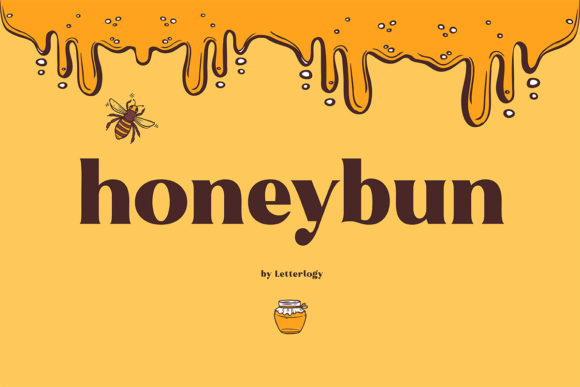
In a world craving uniqueness, Honeybun Font emerges as a beacon of visual delight, an extraordinary display font poised to transform your creative endeavors into captivating masterpieces. As a creation of the renowned letterlogy, this font family exudes an irresistible charm, beckoning you to explore a realm of endless possibilities.
Honeybun Font enchants with its delectable curves and plump letterforms, embodying the essence of warmth and cheer. Its thick strokes, reminiscent of a luscious honey drizzle, lend a touch of sweetness to your designs, while its playful personality adds a dash of whimsy. Embrace the versatility of this font, seamlessly adapting to a myriad of projects, from heartwarming Christmas cards to eye-catching social media graphics.
Immerse yourself in the enchanting world of Honeybun Font, where letters dance with grace and elegance. Let your creativity soar as you craft stunning logos that exude professionalism, captivating posters that ignite imaginations, and personalized invitations that leave a lasting impression. Unleash the power of Honeybun Font to elevate your designs to new heights, captivating audiences and leaving an indelible mark on their hearts.
Picture the joy on your loved ones' faces as they receive a Christmas card adorned with Honeybun Font's festive charm. Its jolly letterforms, reminiscent of gingerbread men and candy canes, will transport them to a winter wonderland filled with warmth and cheer. Embrace the magic of the season and create heartfelt holiday greetings that truly capture the essence of this special time of year.
Honeybun Font beckons you to embark on a creative adventure, empowering you to transform ordinary designs into extraordinary works of art. Its user-friendly nature makes it accessible to designers of all skill levels, while its captivating style ensures that your creations will stand out from the crowd. Experience the delight of using Honeybun Font and let your imagination run wild, crafting designs that ignite passion and leave a lasting impression.